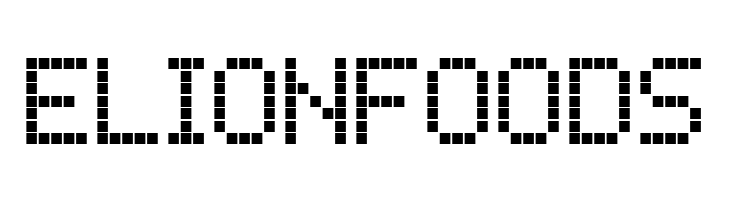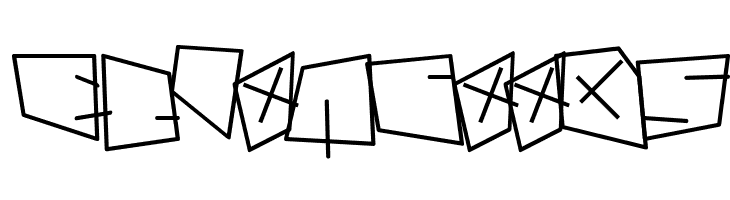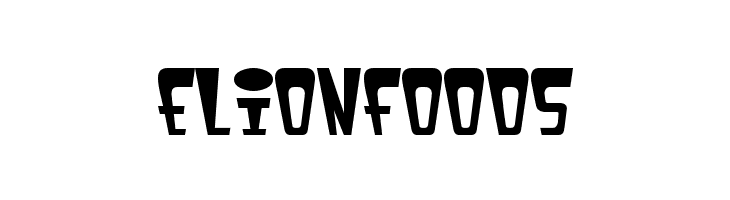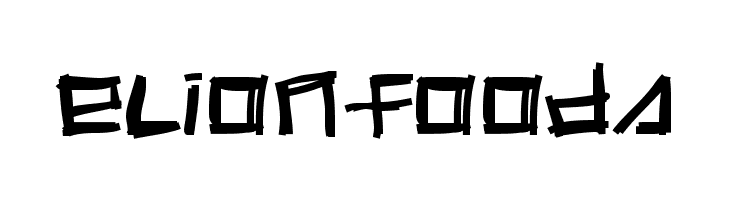
A bold, graffiti-inspired font with dynamic, irregular shapes.
A modern, geometric font with bold, clean lines and a structured appearance.
A pixelated, grid-based font reminiscent of retro digital displays.
A bold, futuristic font with angular, geometric shapes.
A bold, dynamic font with sharp, angular strokes and a rebellious, graffiti-like style.